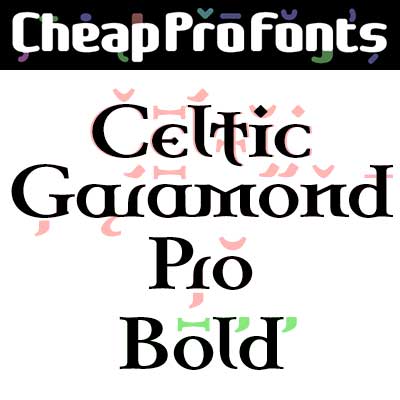
Celtic Garamond Pro Bold
Celtic Garamond Pro Bold by Levente Halmos
Levente Halmos
Finally! A bold companion for our classic Celtic Garamond Pro: a classical proportioned text font - with a celtic twist! Perfect for that oldstyle look, but still very readable.
Celtic Garamond Pro Bold is a professionally reworked font that contains an extended character set for setting text in 65 languages requiring more than the basic A-Z!